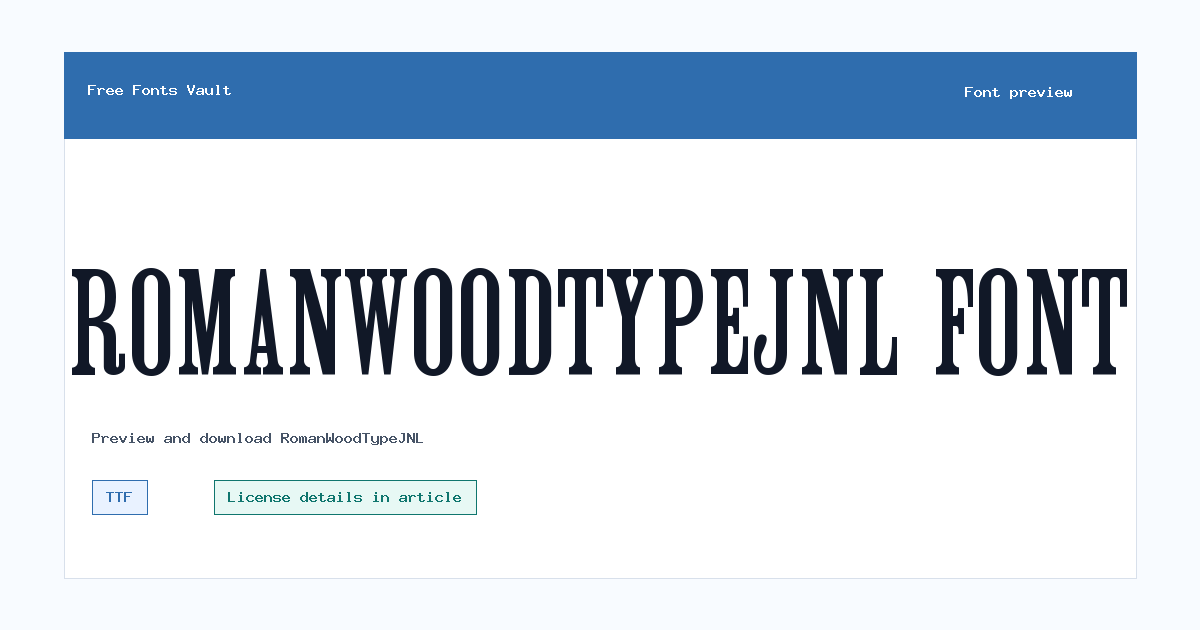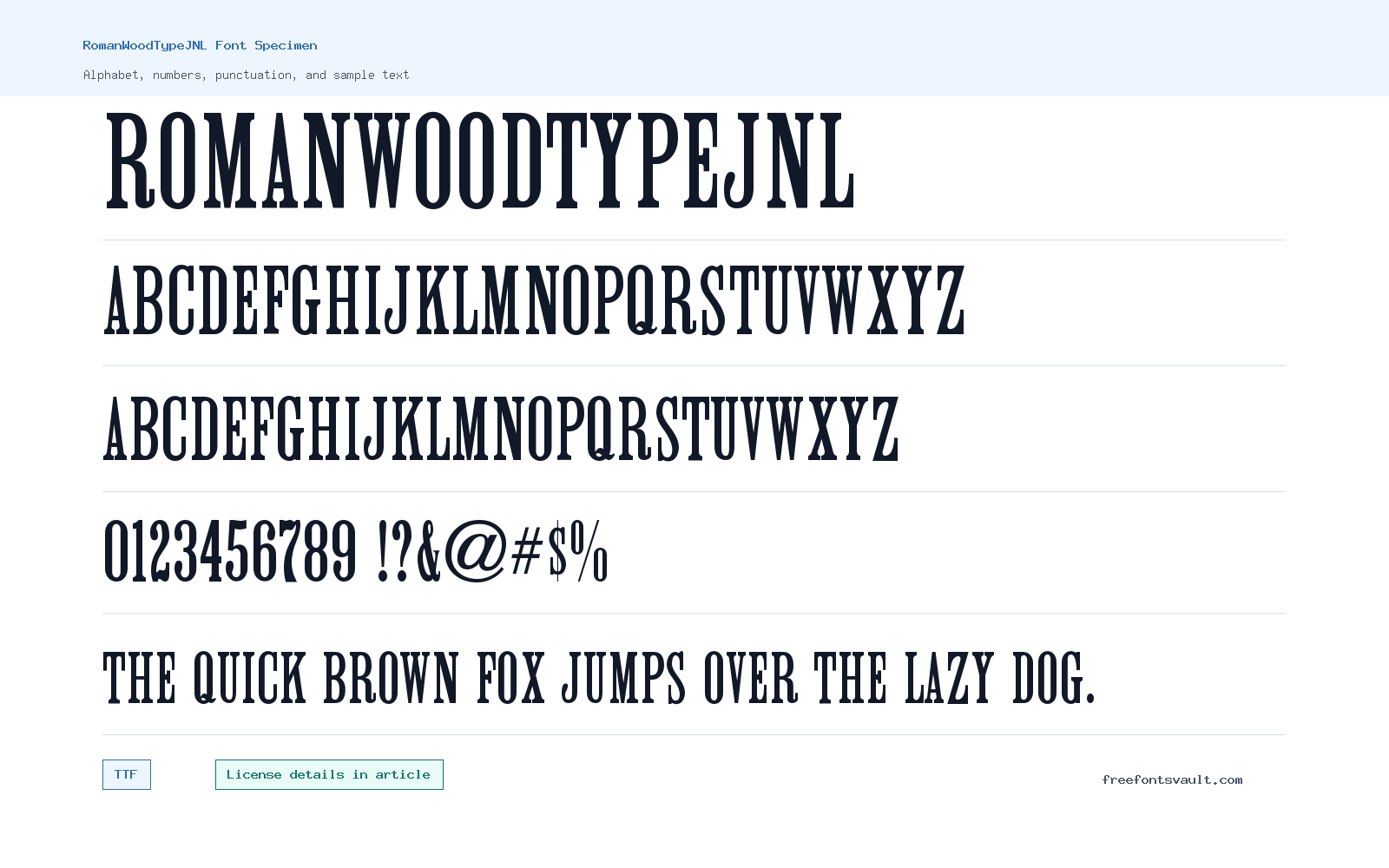
RomanWoodTypeJNL
• Designer Jeffrey N. Levine
• Foundry Jeffrey N. Levine
RomanWoodTypeJNL is a regular TrueType display font credited to Jeffrey N. Levine. Its name points toward Roman wood-type lettering, making it a useful candidate for vintage-flavored titles, labels, and sign-inspired graphics.
About RomanWoodTypeJNL
Try it with short names, event titles, poster lines, packaging labels, and decorative headings. If your layout uses small captions or paragraph copy, pair RomanWoodTypeJNL with a cleaner companion font. That lets the display style set the mood while the supporting text remains easy to read.
• Display-friendly Roman wood-type direction suggested by the family name.
• Useful for large type where vintage sign or poster character matters.
• Poster titles, event graphics, and vintage-style headlines.
• Labels, packaging mockups, signs, and decorative nameplates.
• Short brand-direction tests where a wood-type feel is useful.
• Large initials, badges, and editorial display text.
• Design studies that need an older print-inspired voice without long paragraphs.
Set a few real headlines before deciding. Watch spacing around capitals, numerals, and punctuation, and avoid forcing the font into dense paragraphs where its display character may reduce readability. For a stronger result, compare one very short line with one longer headline so you can see whether the rhythm still feels balanced.
What kind of font is RomanWoodTypeJNL?
It is a regular TrueType display font. The name suggests a Roman wood-type direction, which makes it more suitable for headings than body copy.
Who designed RomanWoodTypeJNL?
The font is credited to Jeffrey N. Levine.
What should I preview first?
Preview your real title, numbers, punctuation, and label text at the final size. Wood-type-inspired fonts usually need room to show their character.